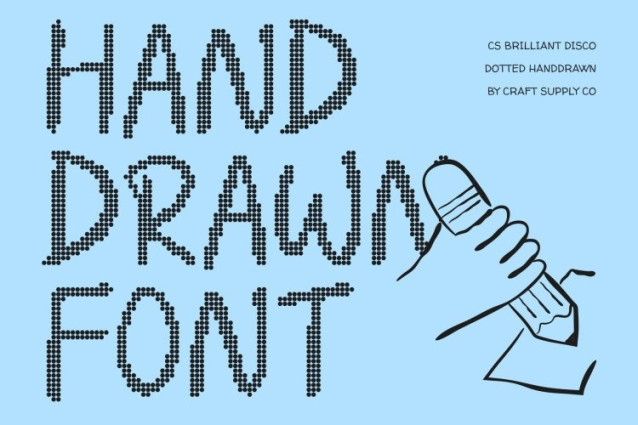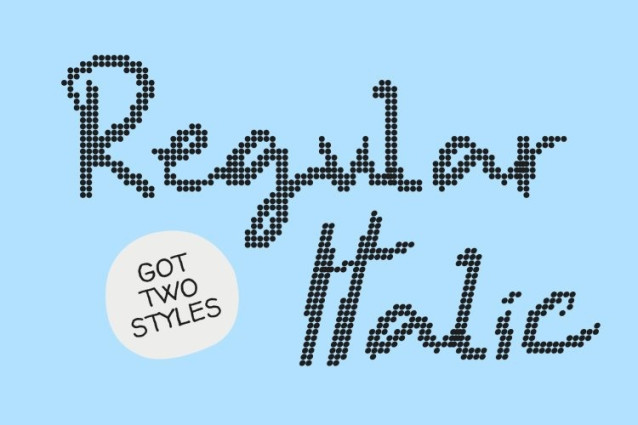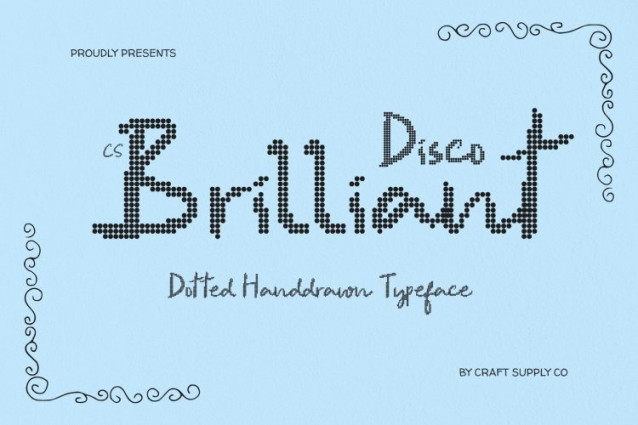
CS Brilliant Disco Font
CS Brilliant Disco Font – This is a handwritten script font crafted to capture the beauty of natural pen strokes with a clean, modern sensibility and a gentle disco-era influence. Its soft structure and smooth flow create a friendly, approachable look blending the authenticity of handwriting with the clarity and balance of contemporary design.
Natural Pen Stroke Character with Retro Soul
Inspired by real handwritten movement, this font features organic curves and subtle irregularities that bring genuine character to every letter. These natural details add warmth, emotion, and a relaxed rhythm reminiscent of the 70s to early 80s making text feel human, expressive, and inviting.
Expressive Yet Neat and Readable
Unlike traditional scripts that can feel overly decorative, maintains a clean script foundation that keeps layouts tidy and legible. This thoughtful balance creates a soft yet structured appearance that works beautifully across both digital and print media, offering expressive charm without visual clutter.
Perfect for Personal, Casual, and Cheerful Designs
Ideal for personal branding, inspirational quotes, casual invitations, lifestyle content, and creative social media visuals, adds an authentic, warm tone to every project. Whether used to highlight a heartfelt message or to add personality to a brand, this font delivers natural handwritten beauty with a subtle retro disco glow.